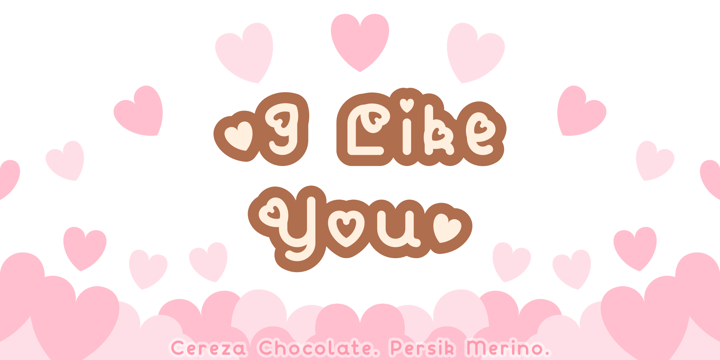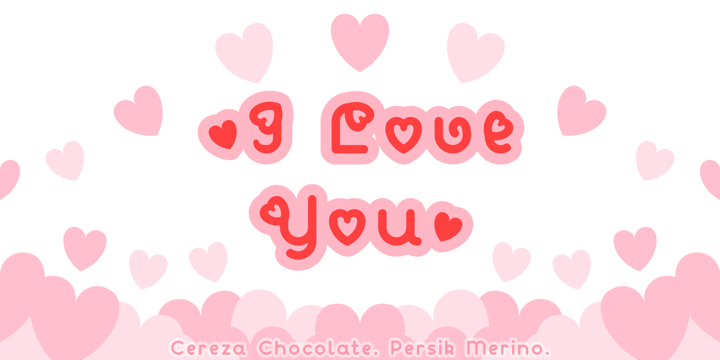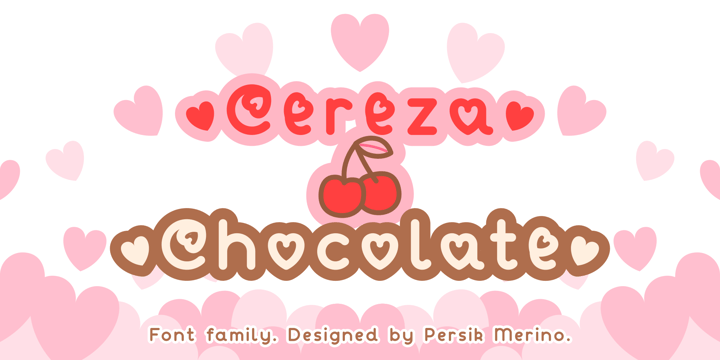
Persik Merino
My name is Persik Merino. My gender is neutral. I'm from Chile. I'm a visual artist, font designer and fiction writer.
I’m self taught in visual art and graphic design. As of 2026, I’m currently studying business administration.
For my designs, I use the software Inkscape and FontForge.
Some of my fonts are inspired by Chilean design, and some are inspired by European design. My design philosophy is to create designs that I have in my imagination and to make fonts that support various Latin script languages, especially Spanish and the native languages of Chile.